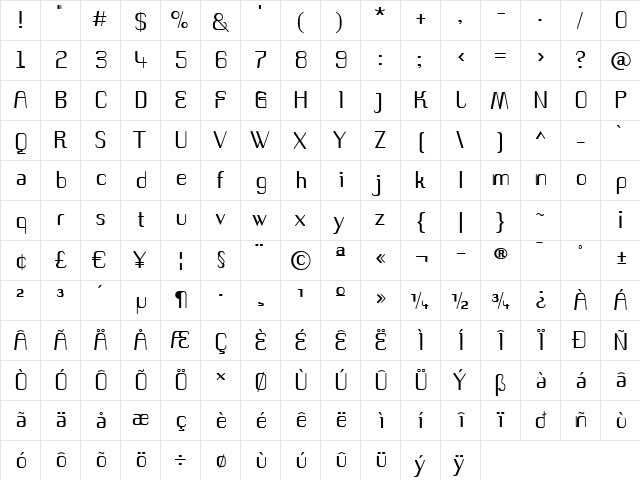
RomeroRegular Regular
Design Context for RomeroRegular Typeface
RomeroRegular takes a measured approach to typography — its balanced proportions and neutral character make it a reliable workhorse for both digital and print work.
Pro Tip: Use RomeroRegular in both headline and body roles to test its range before committing to a single application.